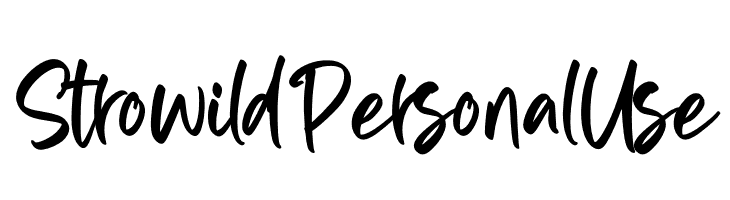
A playful, handwritten font with a childlike charm and bold strokes.
A bold, handwritten font with a playful and energetic style.
A whimsical, bold handwritten font with a playful and dynamic style.
A playful and dynamic handwritten font with fluid, organic letterforms.
A playful, handwritten font with whimsical strokes and a casual, lively appearance.
A bold, expressive brush-style font with dynamic, artistic strokes.
A playful, handwritten font with bold, expressive strokes.
A bold, playful handwritten font with consistent strokes and a casual style.